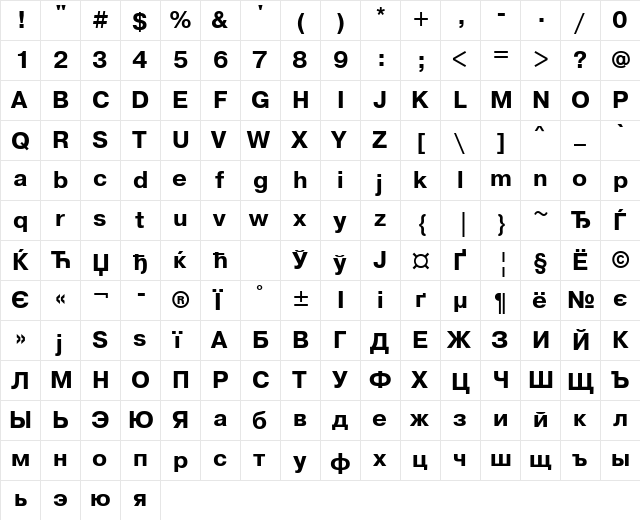
PragmaticaWINCTT Bold Font Preview
PragmaticaWINCTT Bold
Design Context for PragmaticaWINCTT Typeface
PragmaticaWINCTT takes a measured approach to typography — its balanced proportions and neutral character make it a reliable workhorse for both digital and print work. Its bold stroke weight gives it real presence on the page.